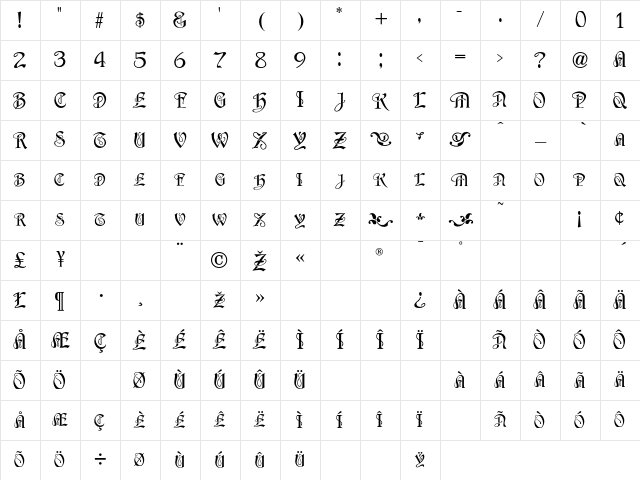
Odessa Regular Free Font
Odessa Regular
Foundry: Digitized by Dan X. Solo. Software Dover Publications, Inc
Design Context for Odessa
Odessa is a composed and adaptable typeface that performs quietly and consistently across a wide range of design contexts.
Who designed the Odessa Regular font?